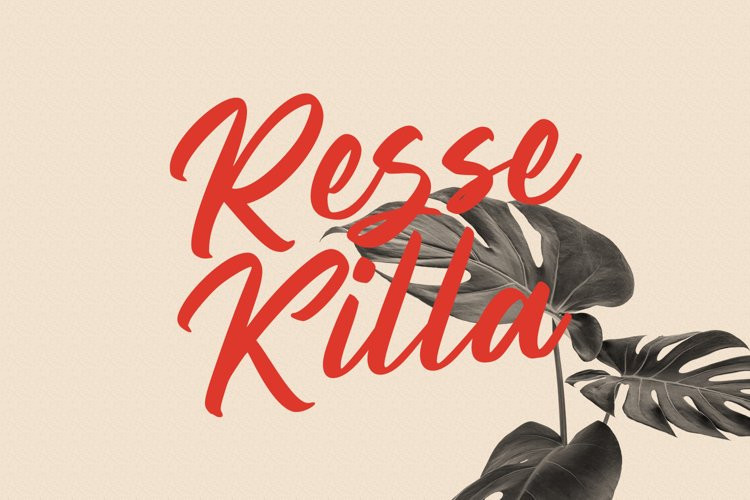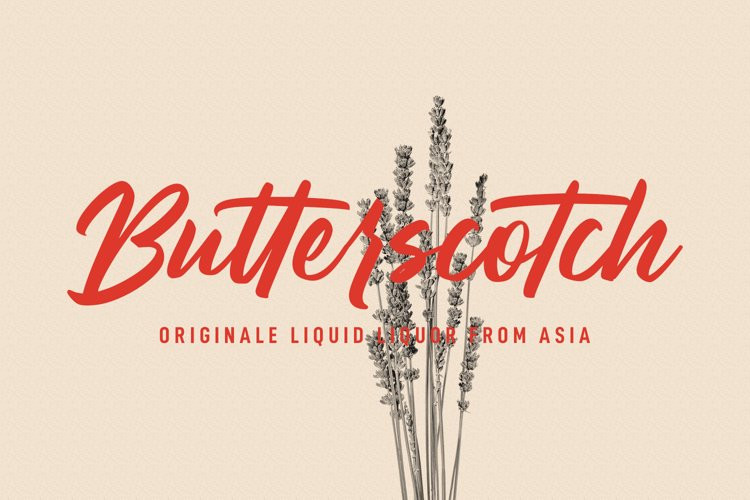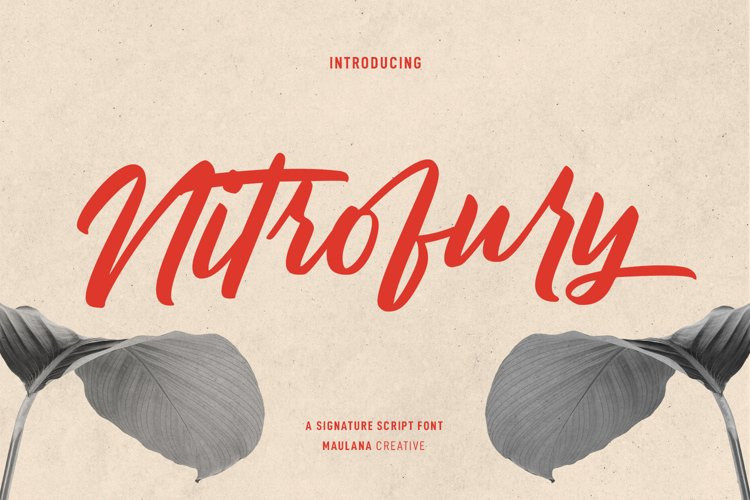
Nitrofury Font
Nitrofury FontNitrofury is a freestyle signature script font. With medium contrast stroke, fun character with a bit of ligatures and alternates. To give you an extra creative work. Nitrofury font support multilingual more than 100+ language. This font is good for logo design, Social media, Movie Titles, Books Titles, a short text even a long text letter and good for your secondary text font with sans or serif. Make a stunning work with Nitrofury font.